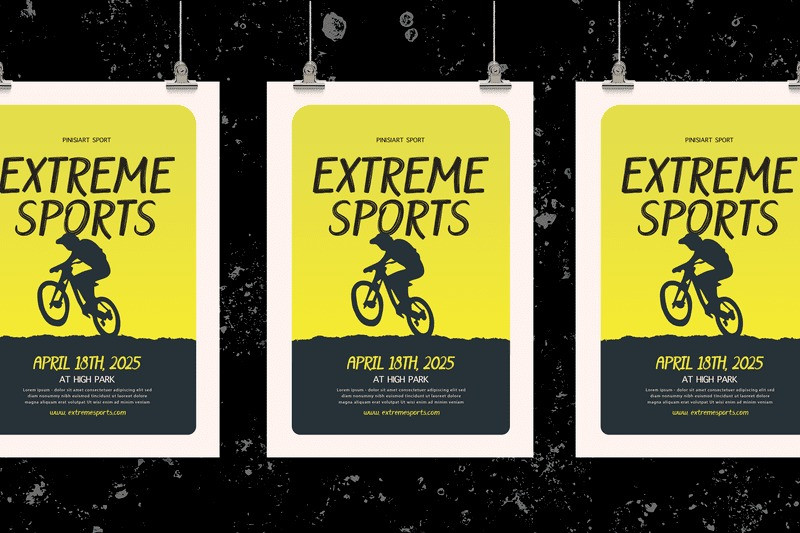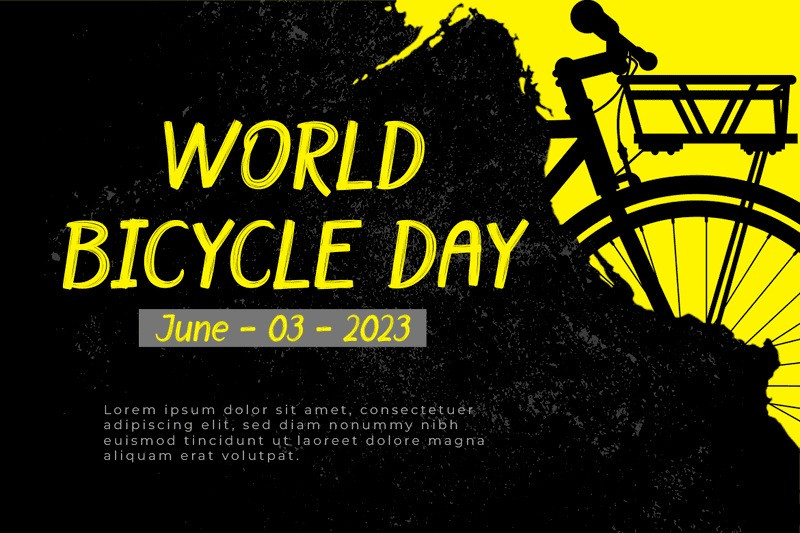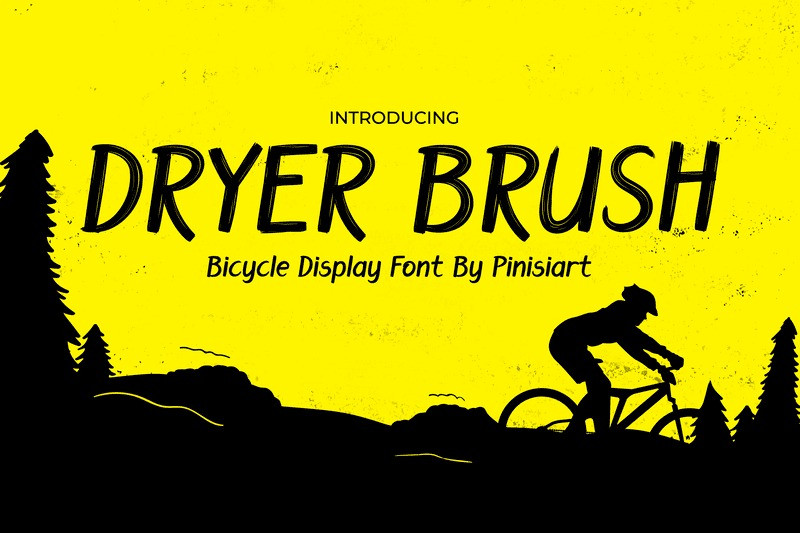
Dryer Brush Font
Dryer Brush Font, The characteristics of this font give a modern feel of handbrush. It can easily be matched to an incredibly large set of projects, so add it to your creative ideas and notice how it makes them stand out!